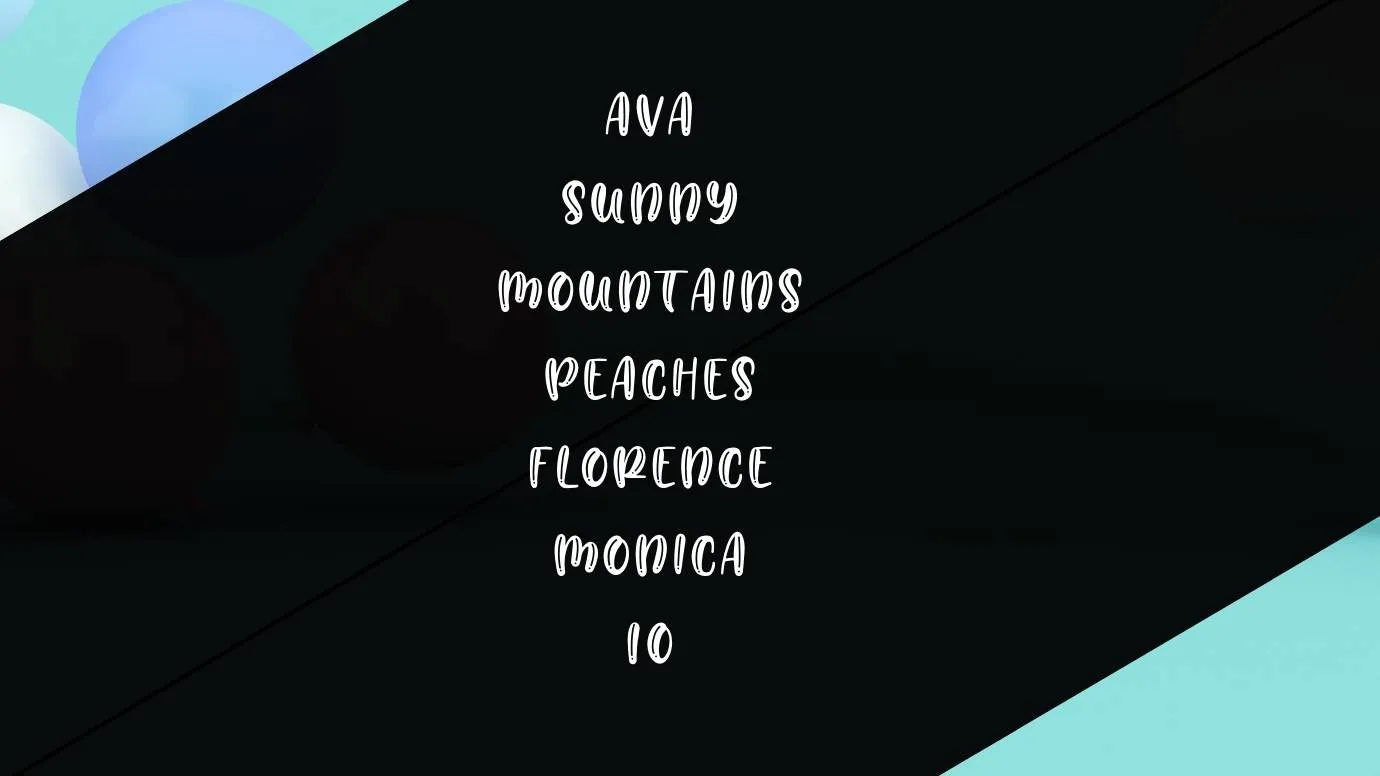
Bubblez Font was designed by Apostrophic Labs in 2003. It’s a fun, bubbly font that is perfect for creating comics or other playful designs. This texture is available in both regular and bold weights.
It is a great choice for any project that needs a light-hearted, playful touch. This font will add personality and charm to your designs and is sure to put a smile on your face.01.
A similar font to this typeface It Features a Light-hearted and playful design, Available in regular and bold weights, and is Perfect for comics or other fun projects. It has a keen future which helps to create attractive designs.
This texture is available in two different styles, the regular and the bold. You can easily compare it with cookies font The regular style is perfect for light-hearted projects, while the bold style adds a bit more personality to your designs. Both styles are sure to put a smile on your face.
No matter what project you’re working on, Bubblez’s texture is sure to add some charm and personality. This fun, bubbly font is perfect for creating comics or other playful designs. So don’t be afraid to let your creativity run wild with it.
It was designed by Apostrophic Labs in 2003. It’s a fun, bubbly font that is perfect for creating comics or other playful designs.
This single appealing design incorporates several elements such as uppercase and lowercase letters, numerals, punctuation, characters, distinctive symbols, glyphs, and multiple language support.
What type of projects is Bubblez Font perfect for?
This style is perfect for light-hearted projects like comics or other fun designs.
Is Bubblez Font available in different styles?
Yes, this texture is available in both regular and bold weights.